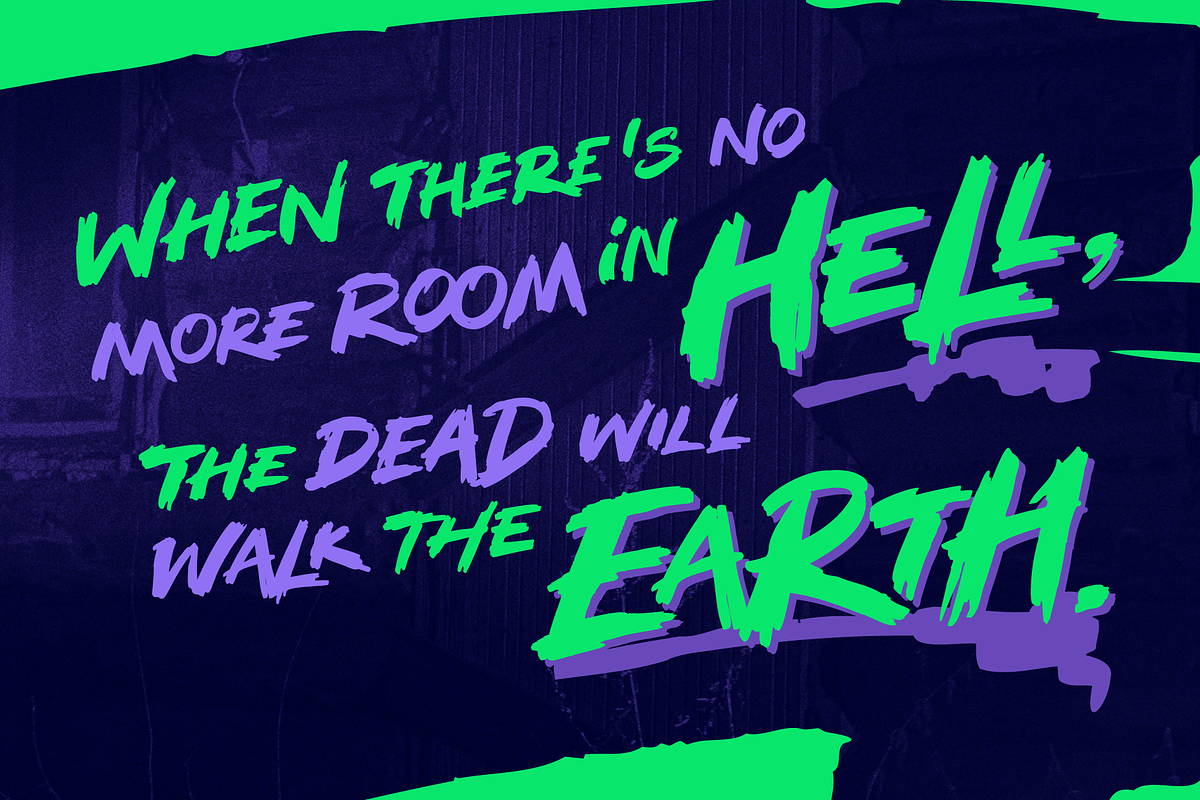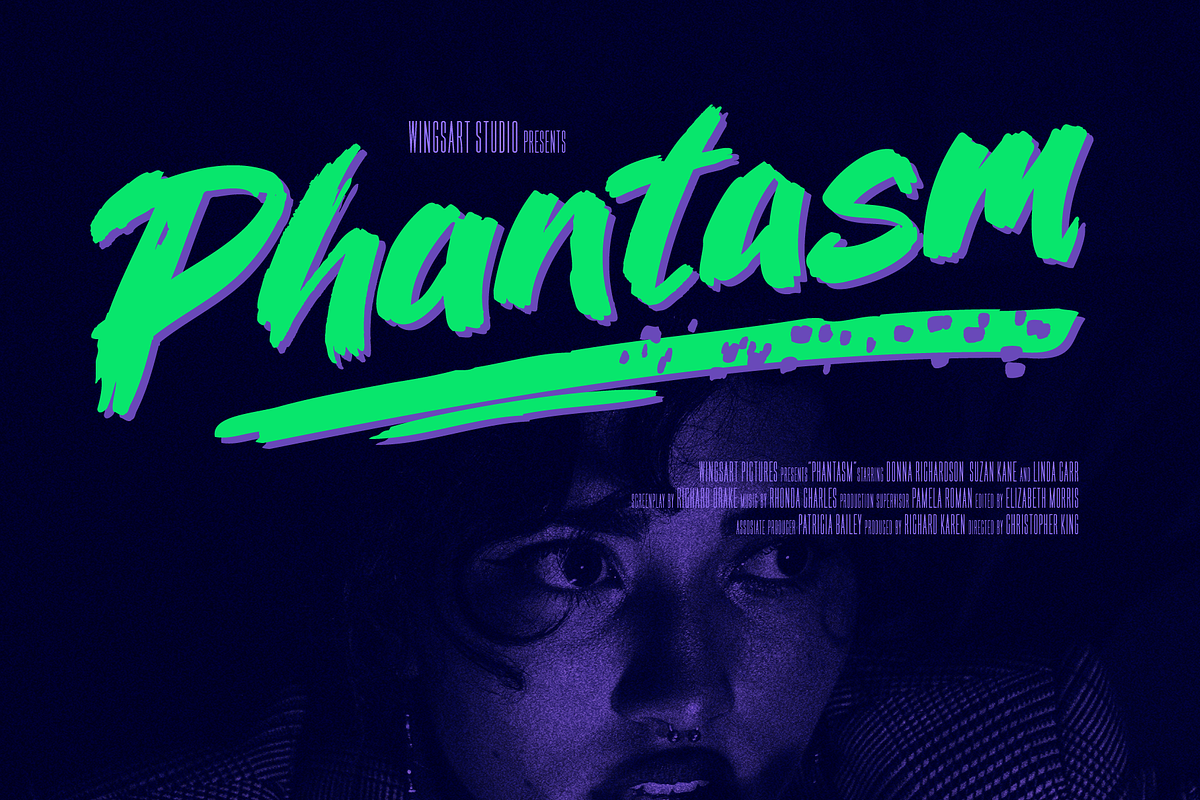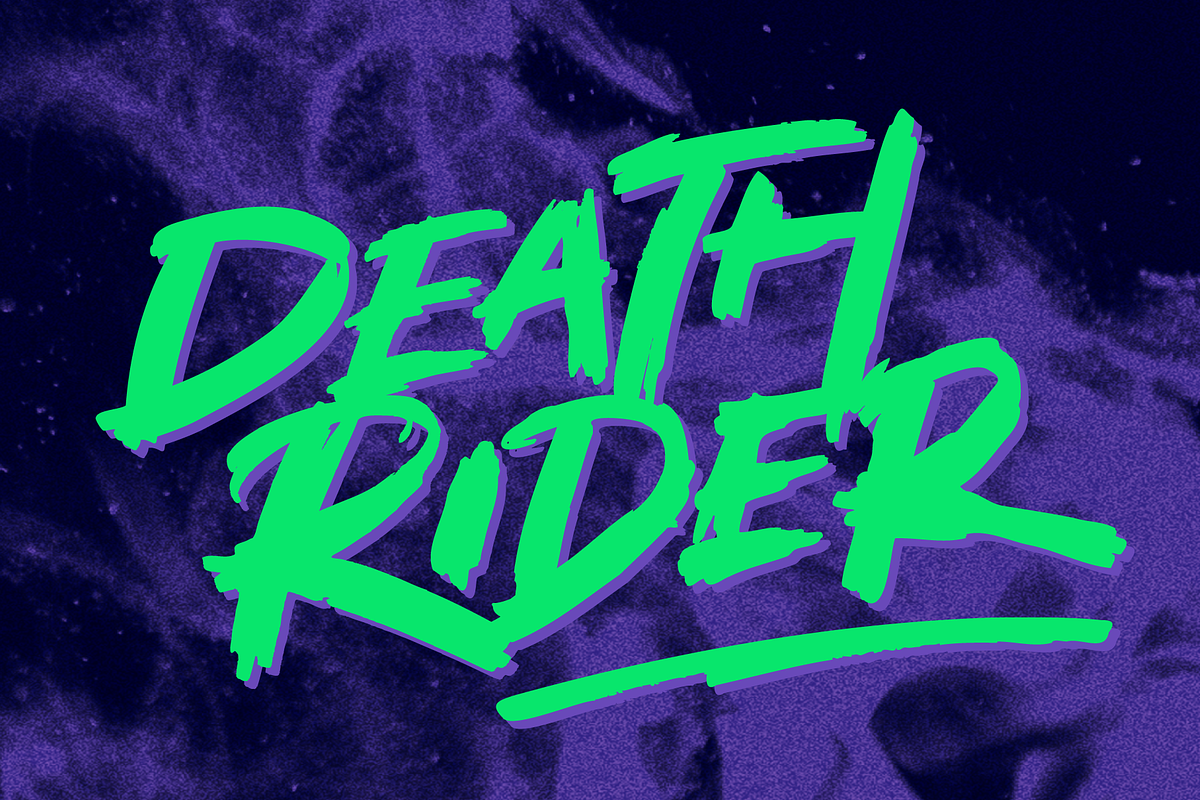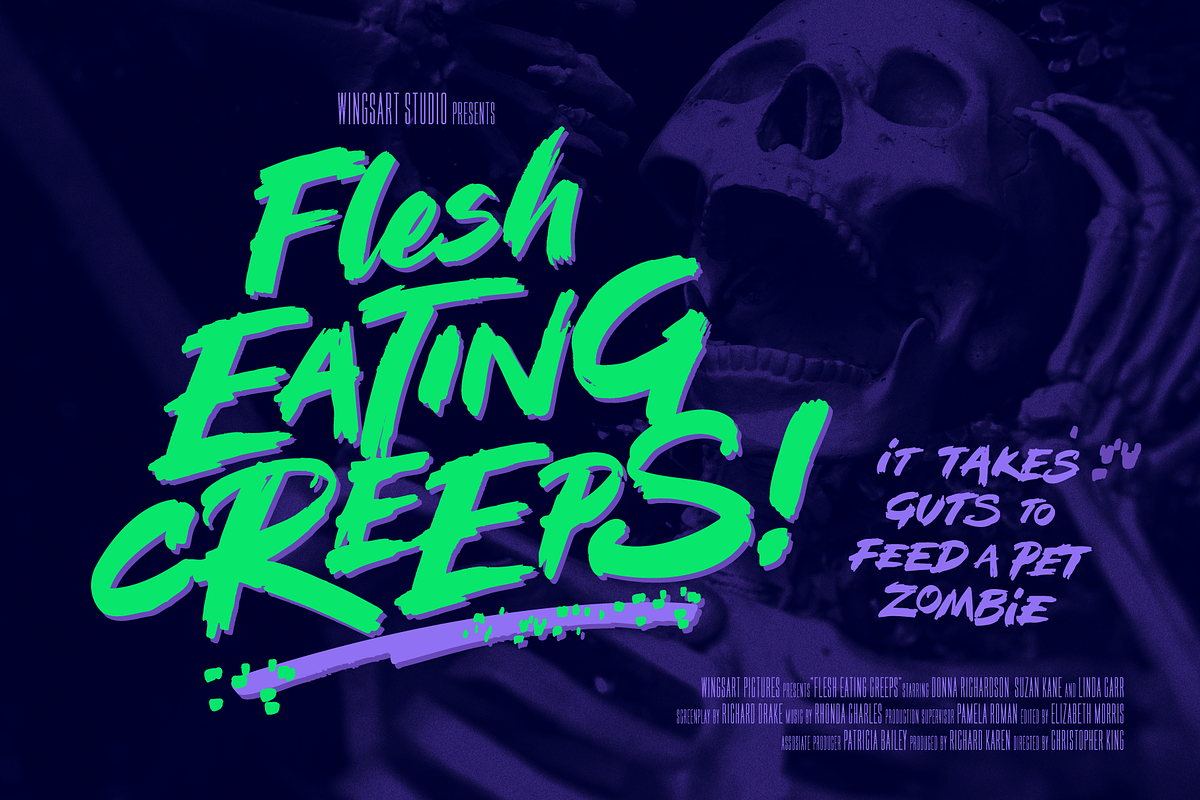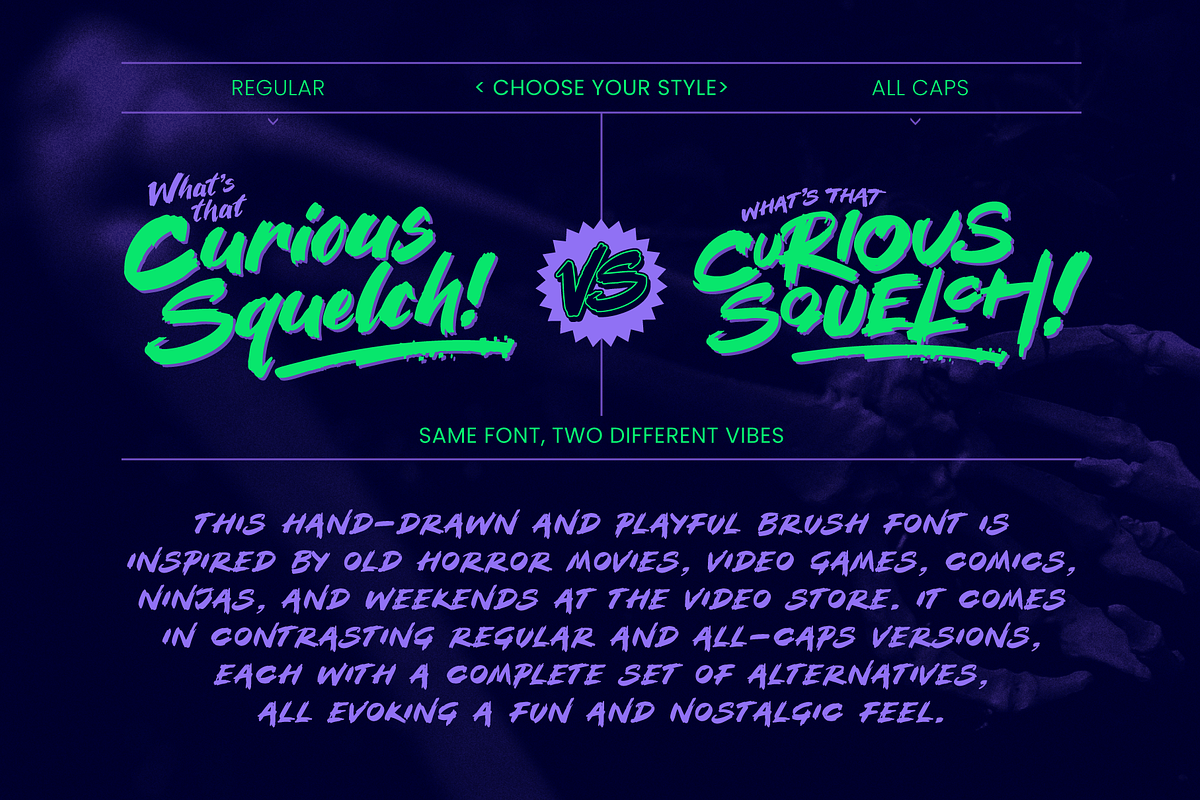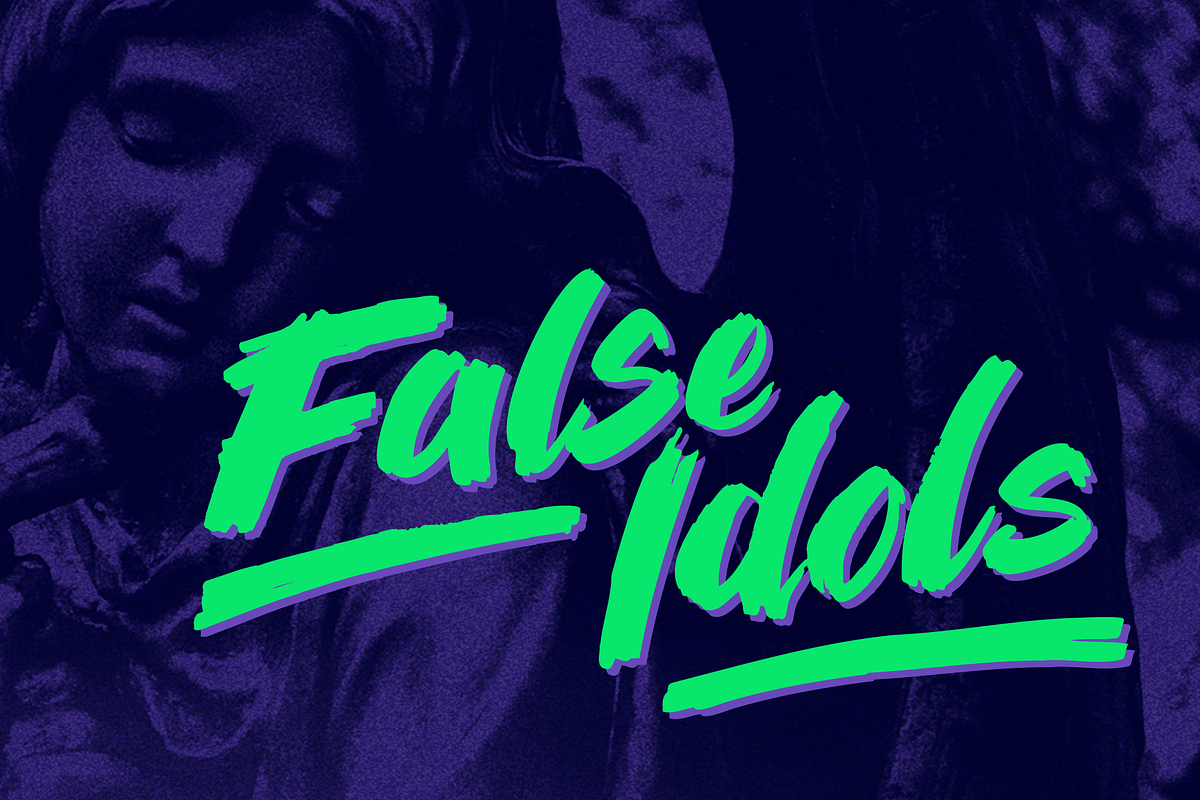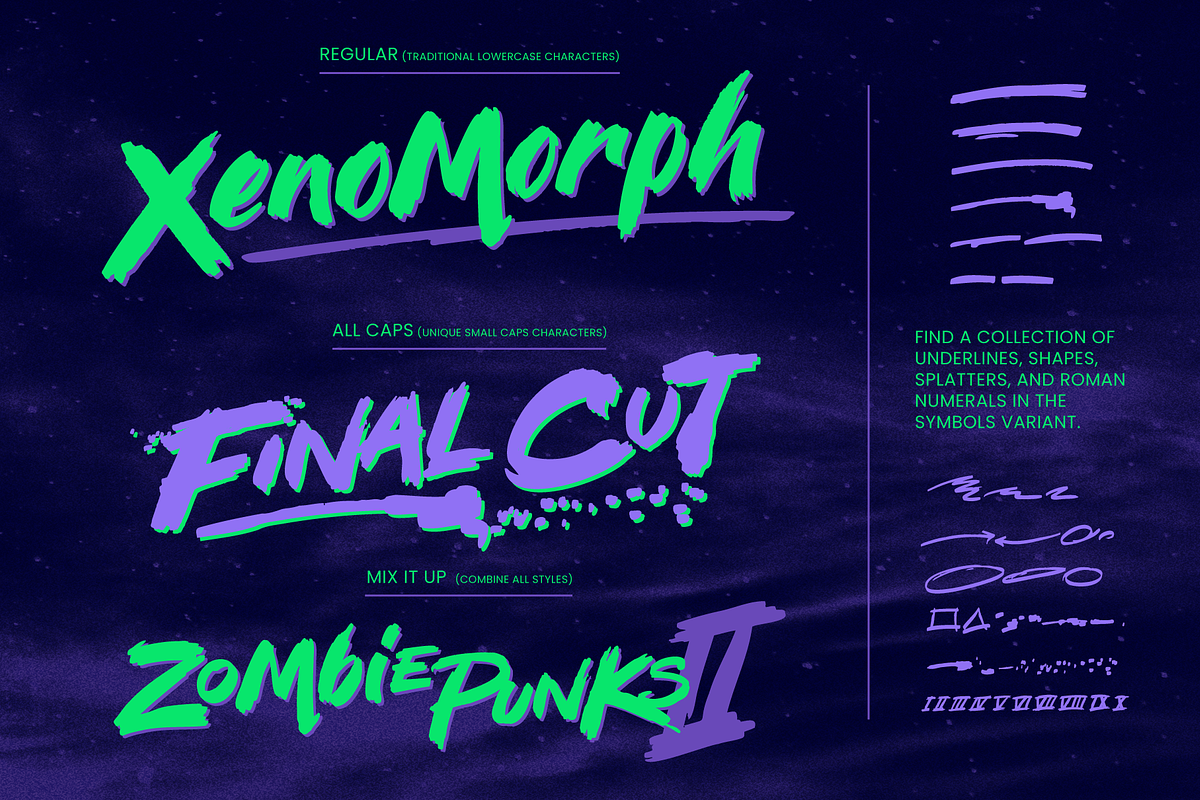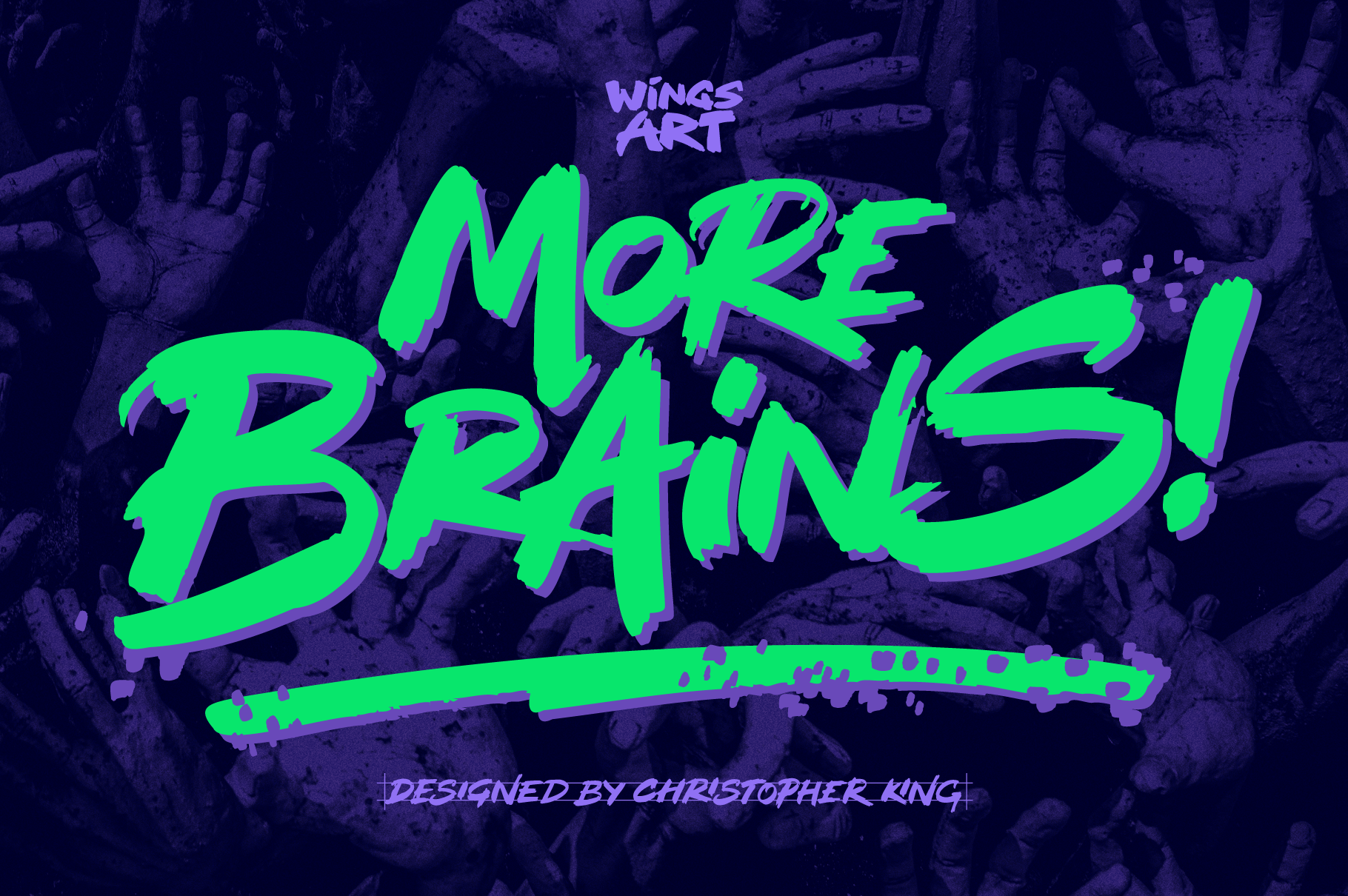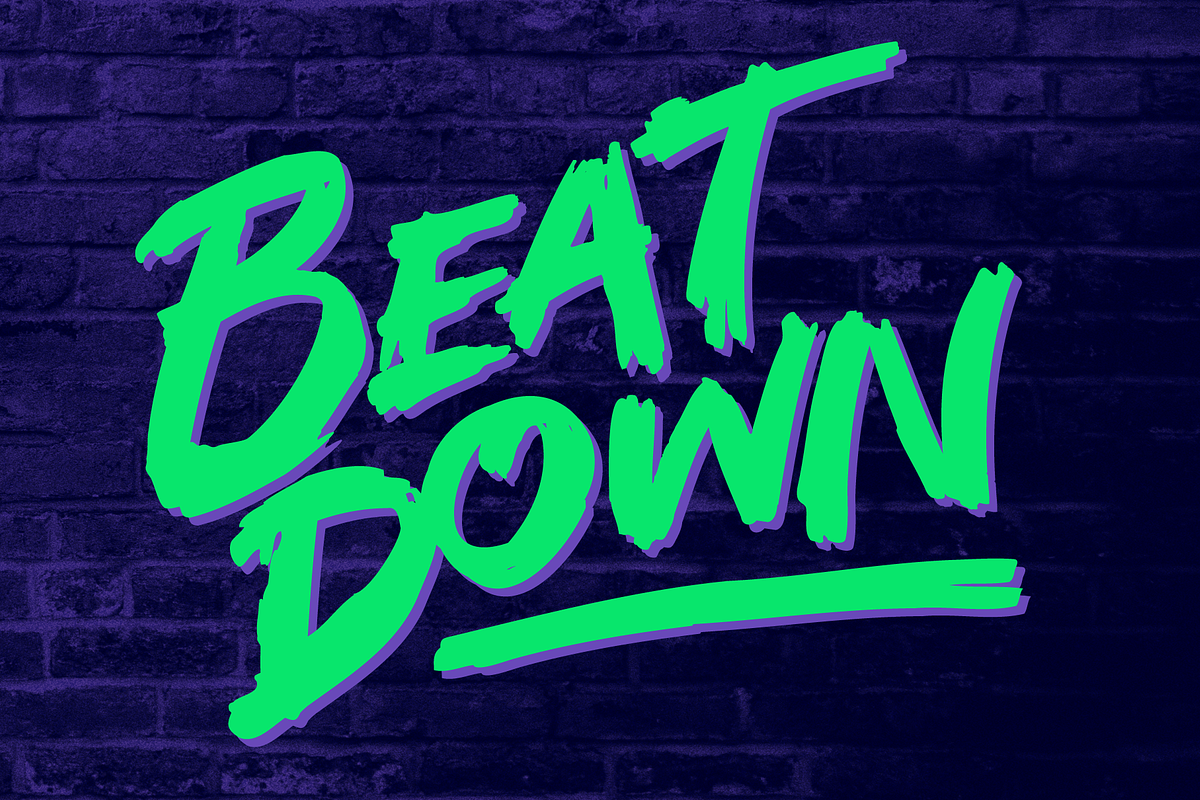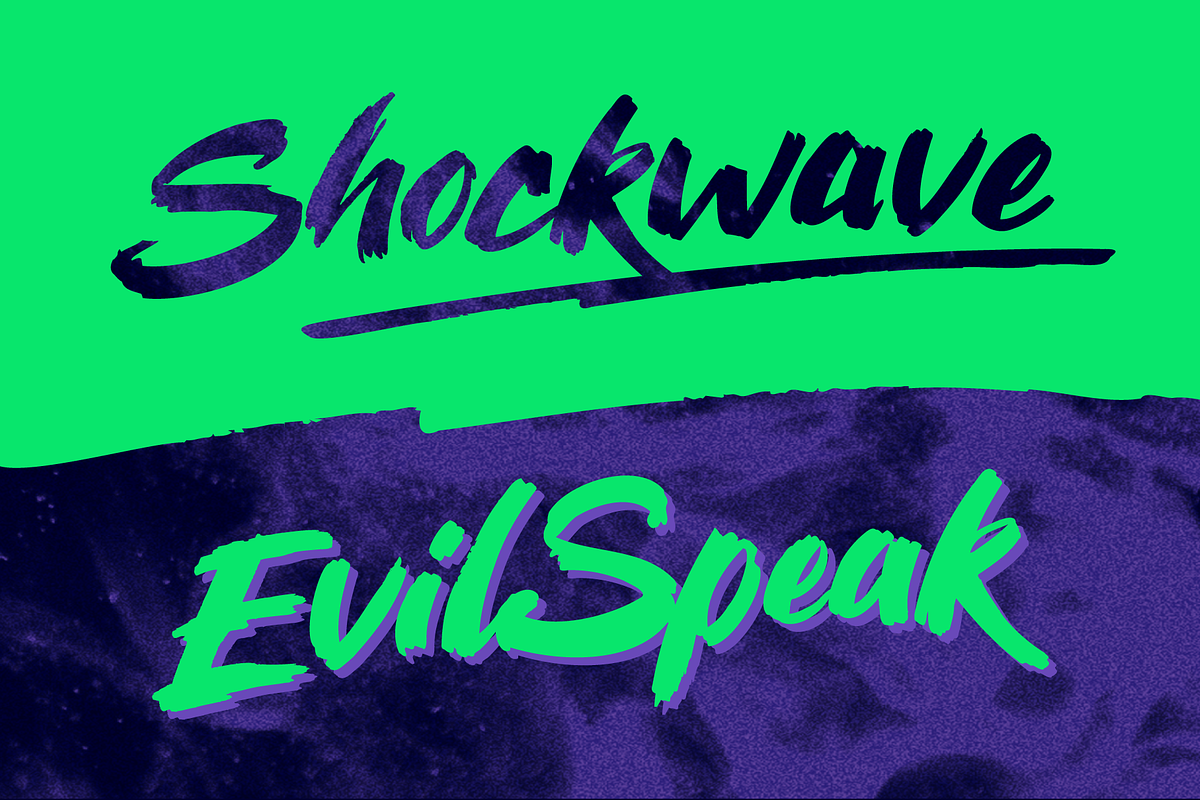
More Brains! Retro Horror Font
More Brains is a playful, hand-drawn horror font inspired by old horror movies, video games, comics, ninjas, and weekends at the video store. It’s supplied in contrasting regular and all-caps versions, each with a complete set of alternatives, evoking a fun and nostalgic feel.
Similar to my popular font Zombie Punks, More Brains was designed to have a more consistent and formalised look with a slight italic lean. It also introduces regular lowercase characters, adding a light-hearted spin on the horror genre.
More Brains features uppercase and lowercase characters, numerals, multilingual support, and an all-caps version (unique uppercase and lowercase) plus a complete set of alternatives, roman numerals, underlines, paint splatters, and symbols. Each style complements each other and works great when mixed in title design. See for yourself in my visuals!